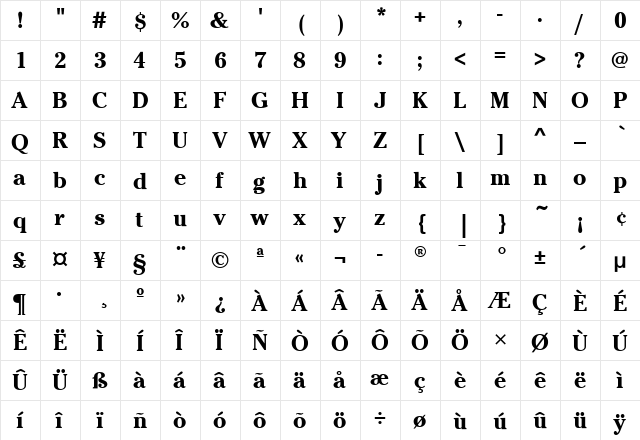
CheltenhamITC Bold Font Preview
CheltenhamITC Bold
CheltenhamITC Bold Font Details
Design Context for CheltenhamITC Typeface
CheltenhamITC offers clean, dependable letterforms without strong stylistic allegiance, making it a practical choice for designers who need flexibility. Its bold stroke weight gives it real presence on the page.